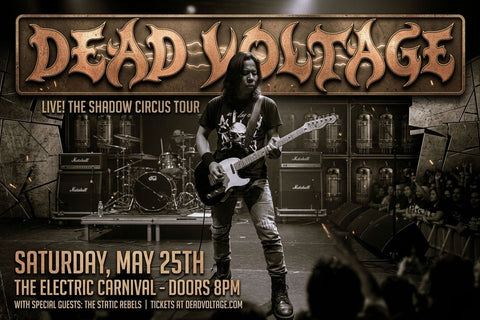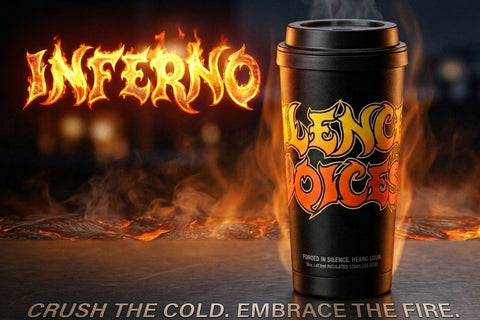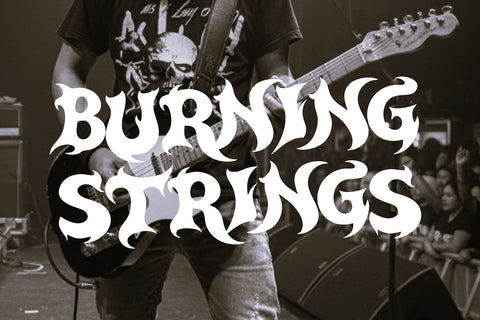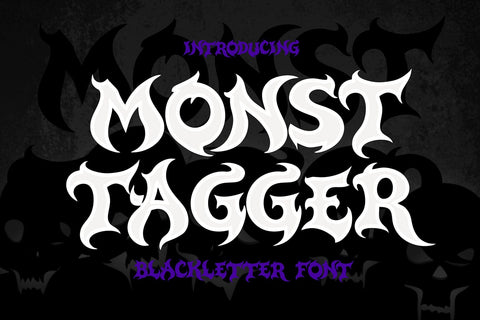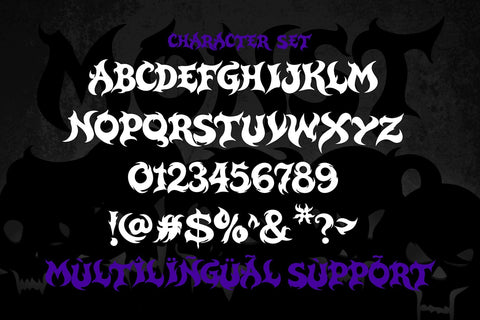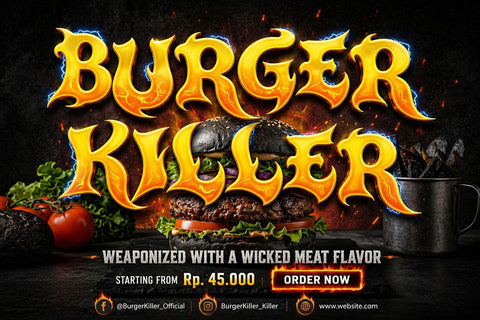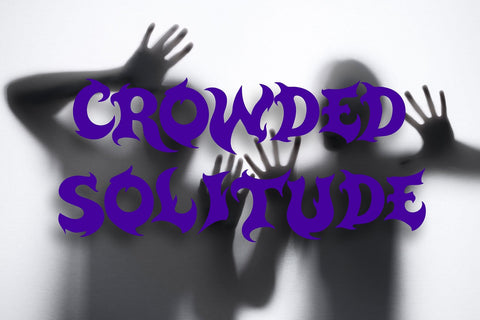
Monsttager – Bold Blackletter Gothic Font
Monsttager is a bold blackletter display font that combines classic gothic typography with a modern and aggressive visual style. Inspired by traditional medieval lettering and contemporary urban aesthetics, this typeface delivers a strong, dramatic presence that instantly commands attention. Its sharp angles, heavy strokes, and intricate details make it perfect for designs that require intensity and character.
The font features uppercase characters designed with bold proportions and structured forms. Each letter is carefully crafted to reflect the essence of blackletter calligraphy while maintaining a clean and modern execution. The result is a typeface that feels both historical and contemporary, bridging the gap between tradition and modern design.
Monsttager includes numbers and punctuation that match the overall gothic aesthetic, ensuring visual consistency across all elements. With multilingual support, the font is suitable for a wide range of languages, making it ideal for global creative projects.
This typeface is perfect for projects that demand a bold and distinctive identity. It works exceptionally well for logos, posters, album covers, merchandise, branding, tattoos, and editorial designs. Its gothic style makes it particularly suitable for themes related to metal music, streetwear, vintage aesthetics, and dark visual concepts.
One of the key strengths of Monsttager is its strong visual impact. The sharp edges and heavy strokes create a sense of power and intensity, making it highly effective for headlines and focal text. It naturally draws attention and creates a memorable impression.
Despite its decorative style, Monsttager maintains readability at display sizes. The structured letterforms ensure that text remains clear while still delivering a bold aesthetic. This balance makes it a reliable choice for both creative and professional design work.
From a design perspective, Monsttager pairs well with minimalist fonts to create contrast and balance. Designers can use it as a headline font while keeping supporting text simple and clean. It also works well with textures, distressed effects, and dark color palettes to enhance its gothic appearance.
Technically, Monsttager is optimized for both print and digital use. Its vector-based construction ensures sharp and high-quality output across different sizes and formats. Whether used in large-scale posters or digital graphics, it maintains its clarity and detail.
Another advantage of Monsttager is its versatility. While rooted in blackletter tradition, it adapts well to modern design trends. It can be used in both classic and contemporary contexts, making it suitable for a wide range of creative directions.
Overall, Monsttager is more than just a blackletter font—it is a powerful visual tool that brings strength, history, and modern edge into design. It allows designers to create bold, expressive, and impactful visuals that stand out.